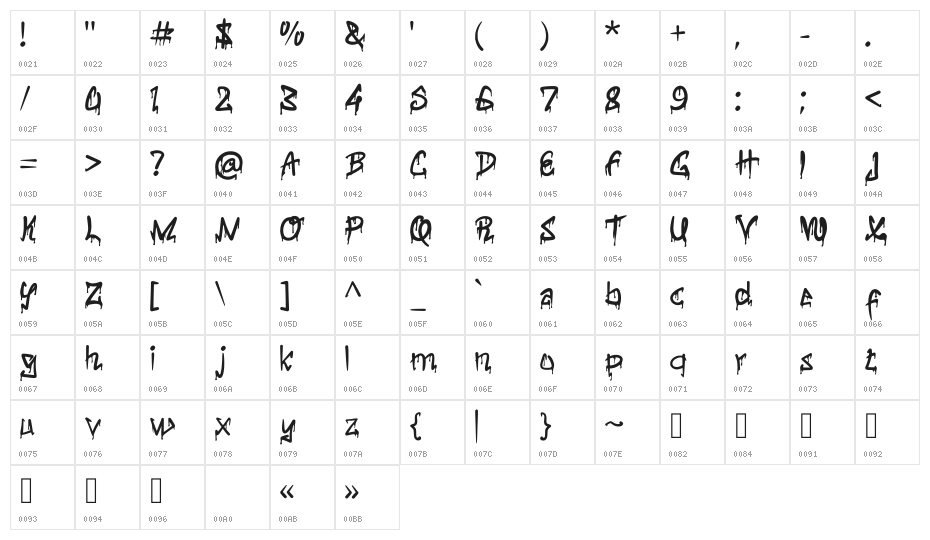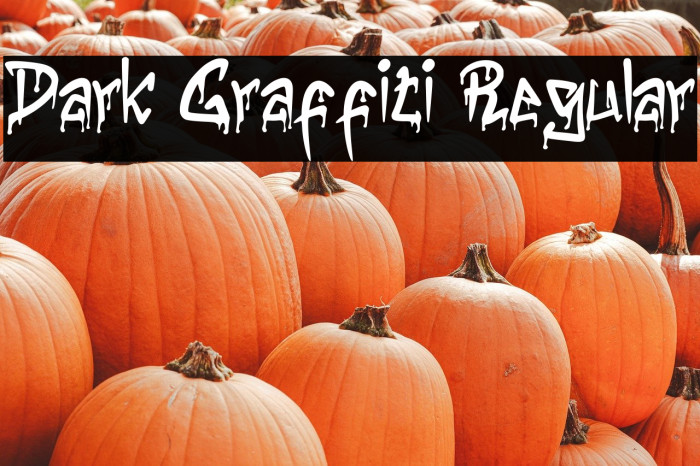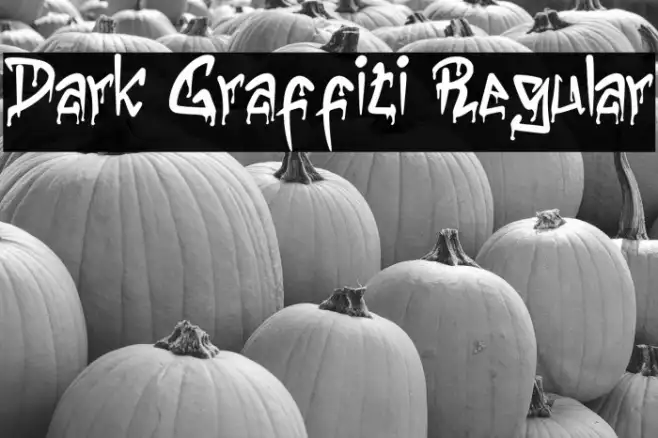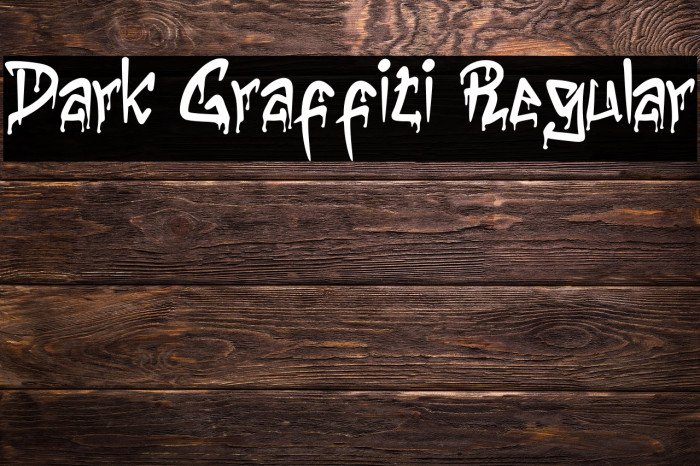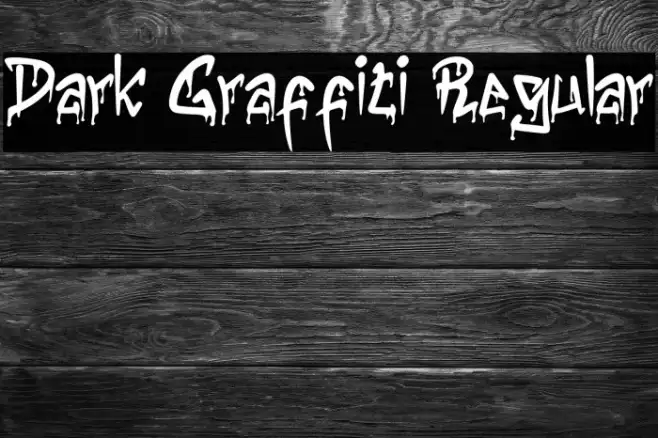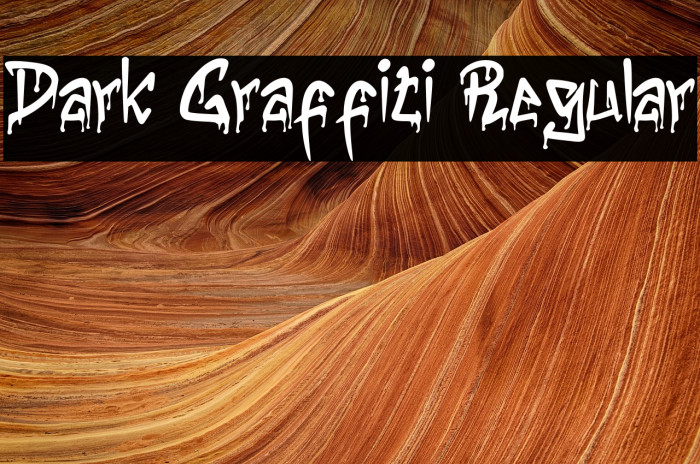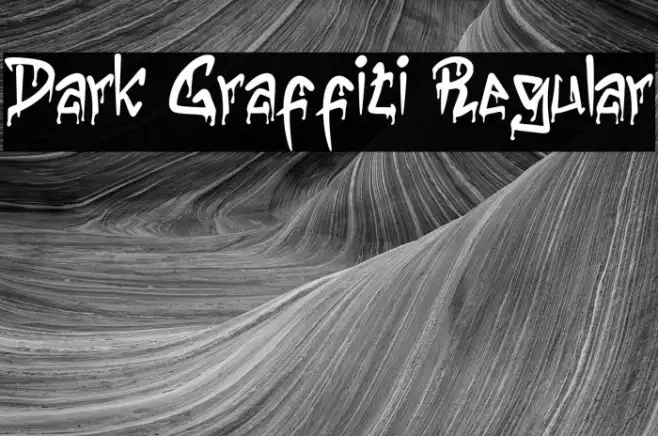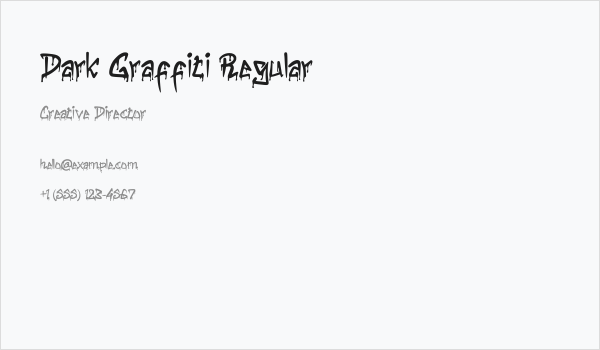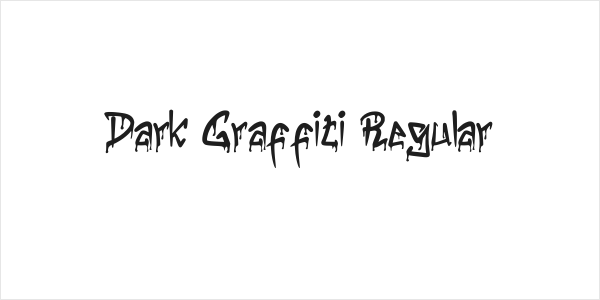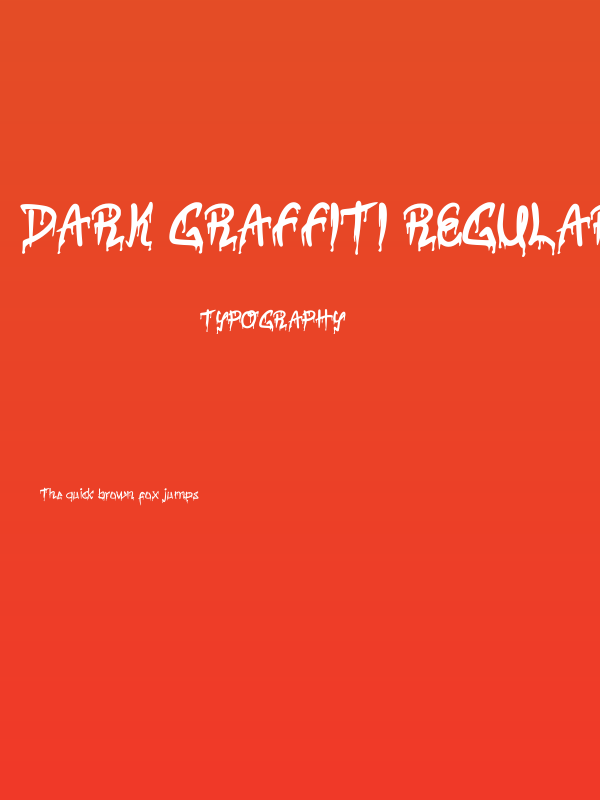
Dark Graffiti Regular Font
Dark Graffiti Regular Description
This font exudes an urban, edgy vibe with its graffiti-inspired design. The characters have a dripping effect, reminiscent of spray paint on a wall, giving it a raw and rebellious feel. The uppercase and lowercase letters maintain a consistent style, with sharp angles and bold strokes that enhance its street art aesthetic. The numbers and special characters follow the same theme, ensuring a cohesive look across all text elements. This font is perfect for projects that aim to capture the essence of urban culture and street art.
| Overall Style | Urban, Edgy, Graffiti |
| Use Case | Logos, Posters, Album covers |
| Proposed Projects | Ideal for street art murals, urban-themed posters, music album covers, and edgy branding projects. |